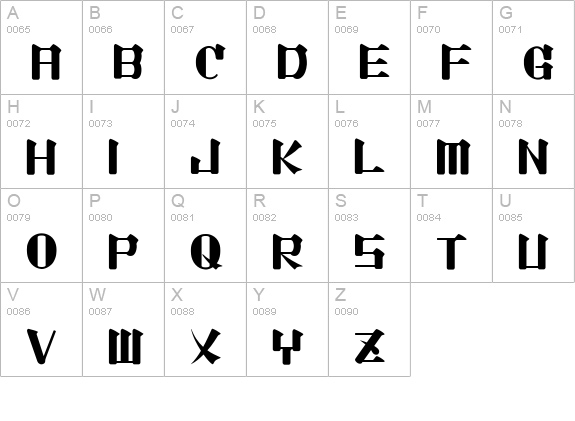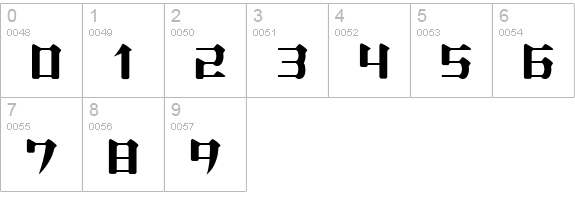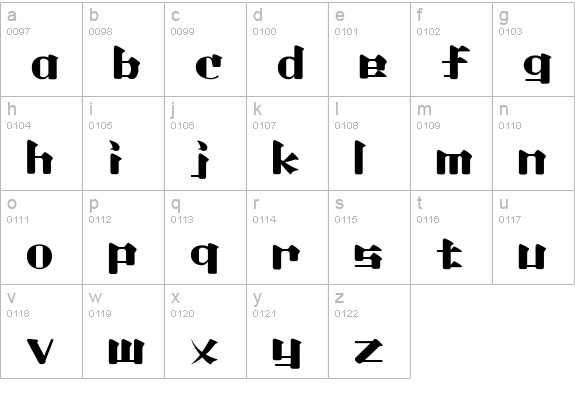
Lightmorning Font Details
Lightmorning font is a delightful and elegant typeface that exudes a sense of modern sophistication. With its clean lines and graceful curves, this font is perfect for a wide range of design projects, from branding to editorial design. The Lightmorning font features a harmonious balance between traditional and contemporary elements, making it versatile and timeless. One of the best things about Lightmorning font is that it is completely free to download at FontsMarket.com. This means that you can easily access this beautiful typeface and use it in your projects without any cost. Whether you are a professional designer or a hobbyist looking to enhance your creations, Lightmorning font is a fantastic choice that will elevate your designs to a new level of elegance and sophistication.